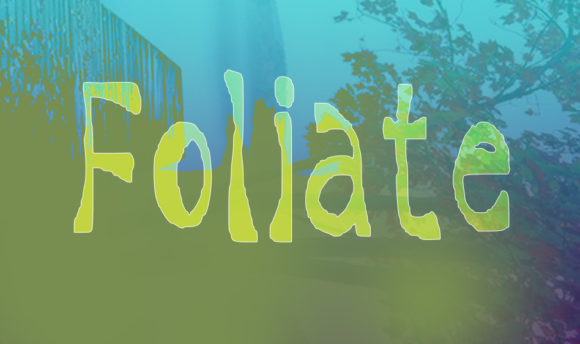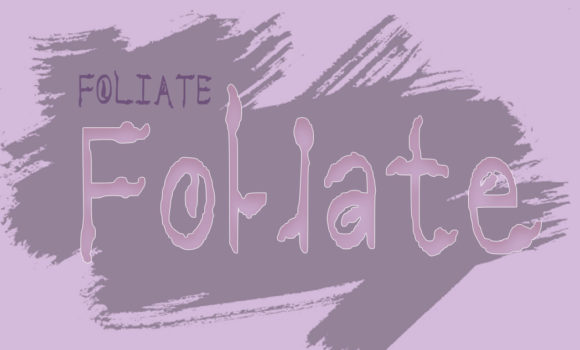
Foliate Font: Elevate Your Designs with a Metallic Twist
In the realm of typography, fonts play a pivotal role in transforming a design from ordinary to extraordinary. Among the myriad of fonts available, the Foliate font stands out for its unique blend of boldness, style, and a metallic sheen that can instantly elevate your visual creations. Whether you’re a seasoned designer or a crafty hobbyist, Foliate is an impressive and stylish display font that can add a touch of sophistication and edge to your projects.
The Essence of Foliate Font
Foliate is not just another font; it’s an experience. Its bold and cool look gives a metallic feeling to your designs, making it perfect for projects that demand a bit of luxury and glamour. The font’s design is meticulously crafted to ensure that it stands out in any medium, be it digital platforms, print materials, or merchandise. The metallic effect imbued in Foliate adds a contemporary and sleek vibe, making your text look as if it’s been stamped with a seal of excellence.
One of the key advantages of the Foliate font is its versatility. It can be used for all purposes of display writing, ranging from headings and titles to posters, logos, and even social media graphics. The font’s strong presence ensures that your message is not just conveyed but also emphasized with style. Whether you’re working on a branding project, an advertising campaign, or simply crafting a statement piece for your social media, Foliate provides the perfect blend of form and function.
Why Choose Foliate Font?
There are several reasons why Foliate should be your go-to font for display writing:
- Unique Metallic Appearance: The font’s metallic sheen sets it apart from more traditional fonts, offering a fresh and modern look.
- High Versatility: Suitable for a wide range of projects, from digital to print, ensuring that your designs have a cohesive and professional look.
- Easy to Read: Despite its bold and stylized appearance, Foliate maintains a level of legibility that ensures your message is always clear.
- Customizable: Being a digital font, Foliate can be easily manipulated and customized to fit the specific needs of your project.
How to Use Foliate Font Effectively
To make the most out of Foliate, consider the following tips:
- Pair with Simpler Fonts: For body text, pair Foliate with simpler, easy-to-read fonts to create a balanced design.
- Experiment with Colors: While the metallic effect is stunning on its own, experimenting with different colors can further enhance the font’s appearance.
- Utilize Size Variations: Take advantage of the font’s size variations to create a hierarchy in your design, emphasizing key points.
Foliate font is more than just a stylish display font; it’s a tool that can transform your designs, giving them a professional and luxurious feel. Its unique metallic appearance, combined with its versatility and readability, makes it an excellent choice for designers and crafters alike. Whether you’re looking to make a statement with your branding, create eye-catching advertisements, or simply add a touch of elegance to your digital and print projects, Foliate is sure to exceed your expectations.
So, why settle for ordinary when you can create something extraordinary? Dive into the world of Foliate font today and discover how this impressive and stylish display font can elevate your designs to new heights.